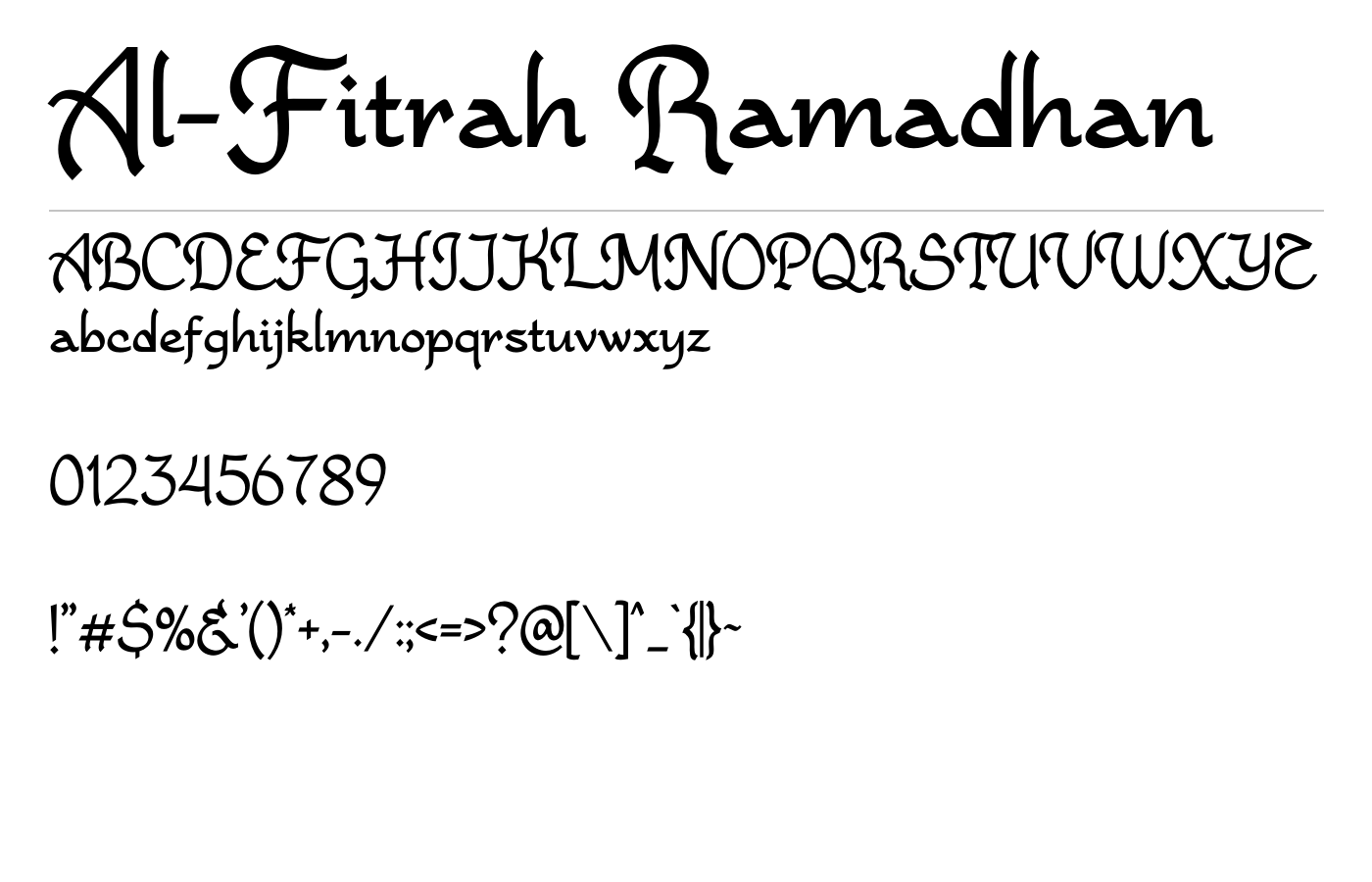
Al-Fitrah Ramadhan is a decorative serif font with elegant, flowing strokes that blend traditional calligraphic influences with modern readability. It features moderate contrast in stroke weight and unique, stylized letterforms that evoke a refined and festive mood, making it ideal for cultural, religious, or special occasion designs such as Ramadan-themed branding, invitations, and headlines. This font brings a graceful, sophisticated touch wherever a blend of tradition and contemporary style is desired.
Al-Fitrah Ramadhan Font
About Al-Fitrah Ramadhan Font
| Font family | Al-Fitrah Ramadhan Font |
| Designer | Muhamad Yusron Billah |